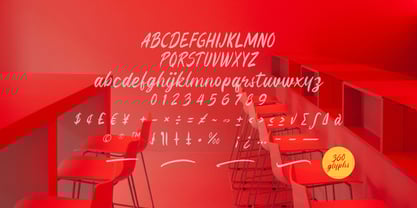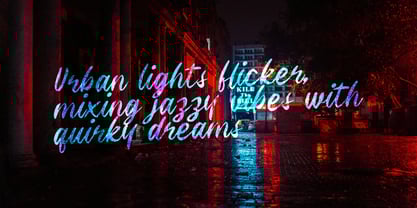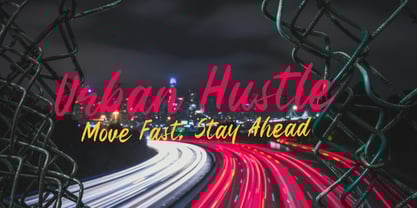
Street Script
by Letterytz CalliType
Street Script – A Bold & Energetic Handwritten Typeface
Street Script is a dynamic and expressive script font inspired by urban lettering, graffiti culture, and modern calligraphy. Designed with bold strokes and smooth curves, this font captures the raw energy of the streets while maintaining versatility for various design projects.
With over 360 glyphs, including uppercase & lowercase letters, numbers, punctuation, currency symbols, and stylistic alternates, Street Script offers a natural and fluid handwriting feel. The font is perfect for branding, posters, apparel, signage, social media, and creative typography projects.
Whether you're designing eye-catching headlines, stylish logos, or artistic packaging, Street Script brings a rebellious yet sophisticated vibe to your work.
Features:
✅ Handcrafted script with bold strokes
✅ Smooth, flowing letterforms for an authentic handwritten feel
✅ Extensive glyph set with alternates & ligatures
✅ Multilingual support
✅ Perfect for urban branding, advertising, and creative projects
Let your designs stand out with the energy of Street Script by Letterytz CalliType!